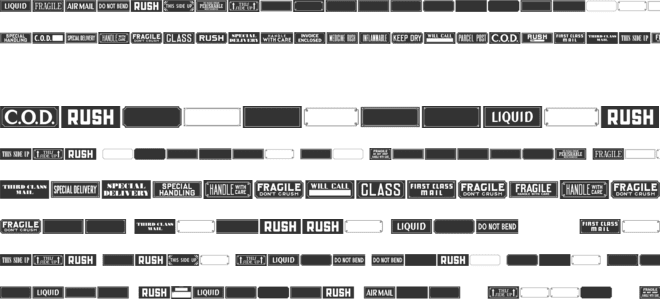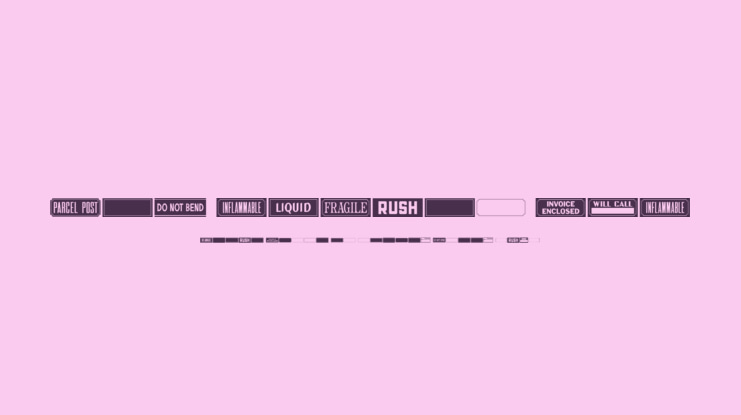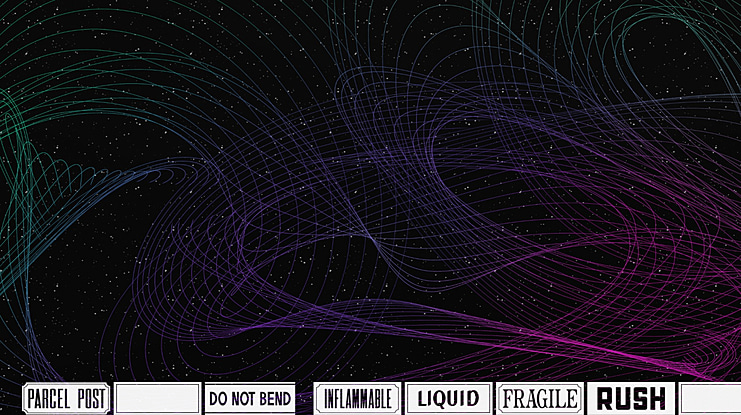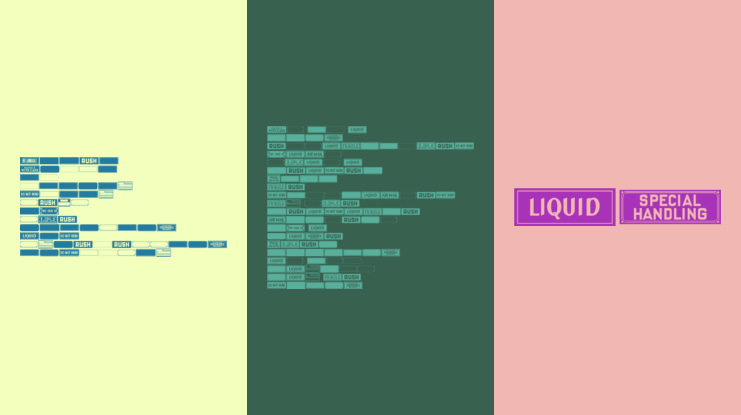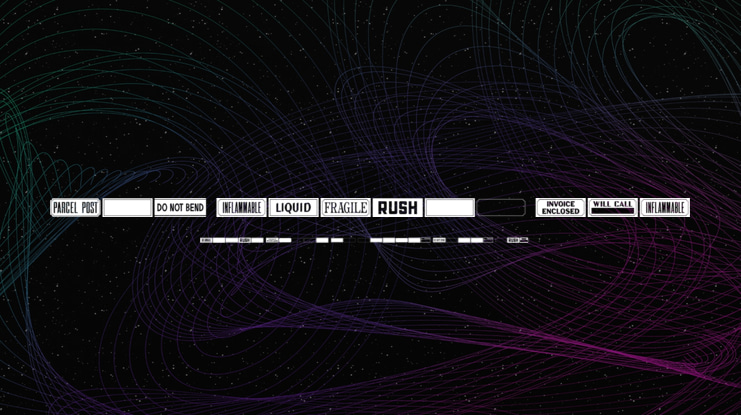
Old Labels JNL Font
Old Labels JNL was inspired by the red and white gummed labels that were used for shipping parcels long before self-adhesive materials and desktop publishing rendered the older labels obsolete.
The fifty-two glyphs include a generous supply of phrases such as ‘Air Mail’, ‘Do Not Bend’, ‘Rush’, etc. along with a number of blank label backgrounds and decorative frames.